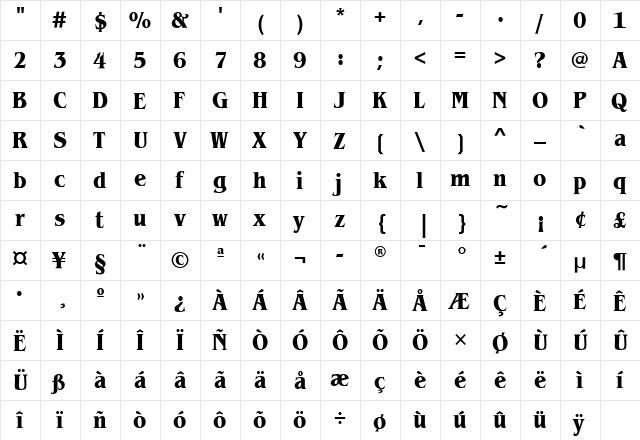
BenguiatCdITC Bold
Design Context for BenguiatCdITC Typeface
BenguiatCdITC is a composed and adaptable typeface that performs quietly and consistently across a wide range of design contexts. Its bold stroke weight gives it real presence on the page.